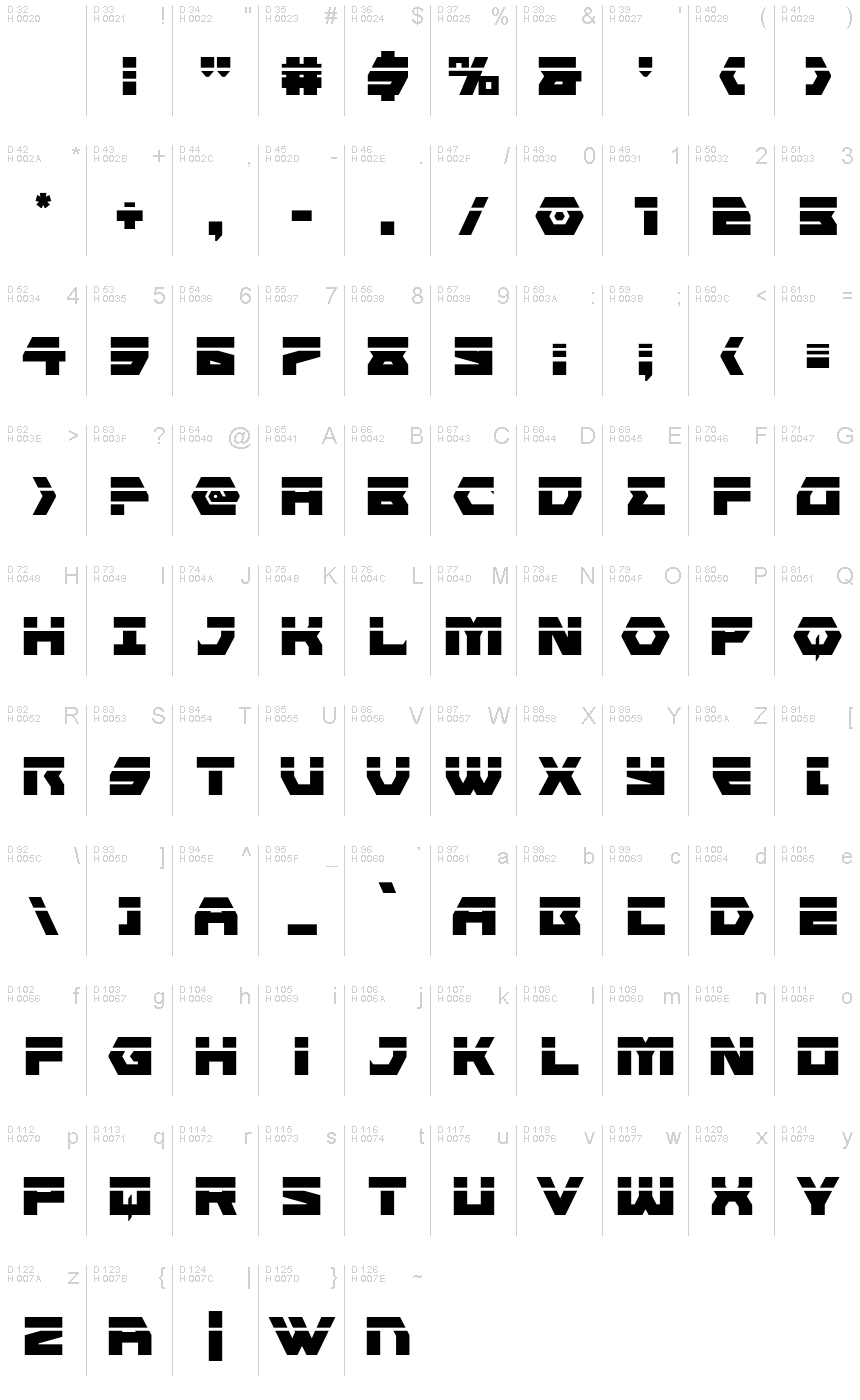
Cyberform Laser
Cyberform Laser, part of the Cyberform family by Iconian Fonts, is a striking display typeface that embodies a bold and futuristic aesthetic. With its expanded width and strong presence, this font commands attention and exudes a sense of technological sophistication. The sharp, angular shapes and clean lines make it perfect for projects that require a modern, high-tech feel.
Ideal for sci-fi movie posters, video game titles, or cutting-edge tech branding, Cyberform Laser ensures your message stands out with authority and style. Its distinctive design elements make it an excellent choice for making impactful headlines or eye-catching logos in any digital or print format.